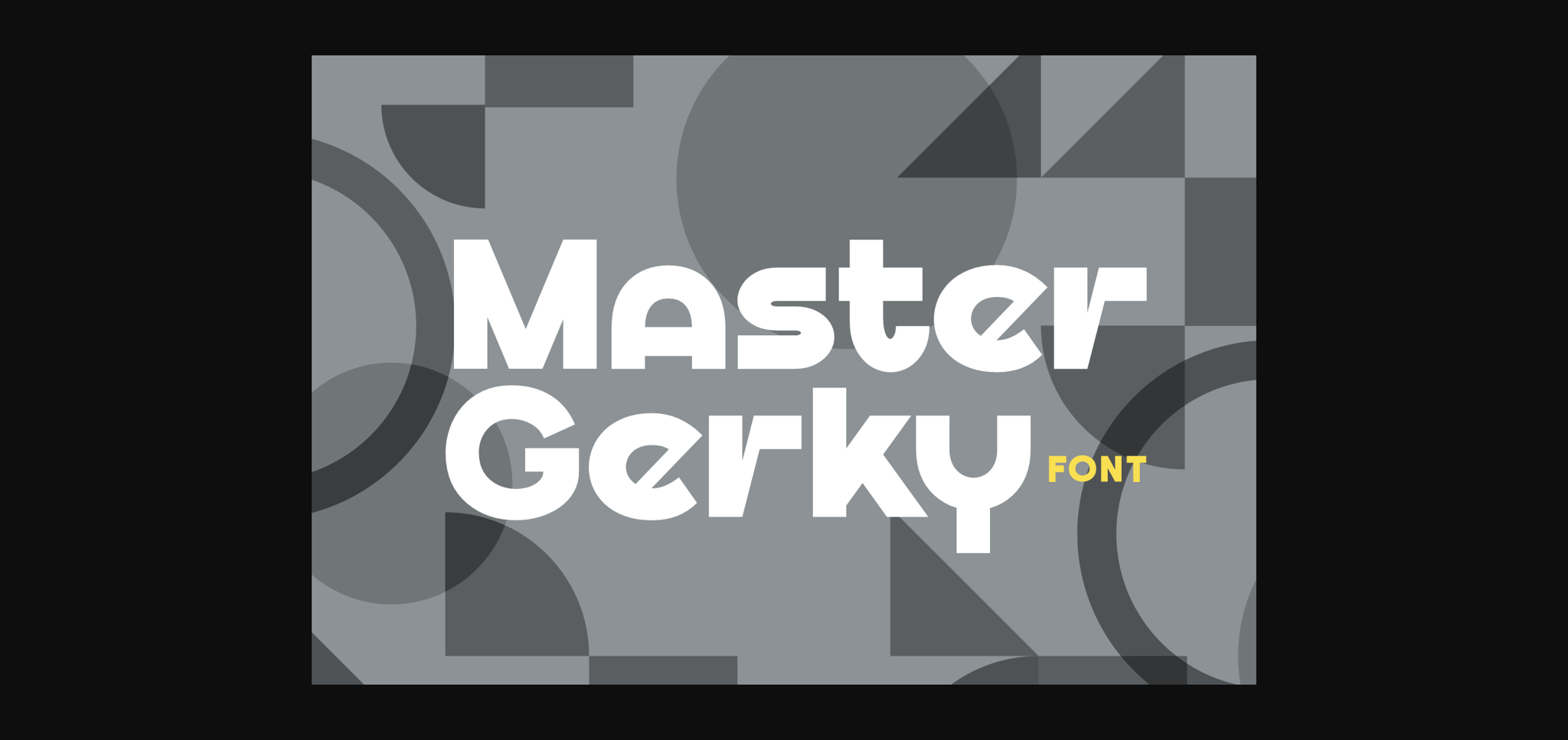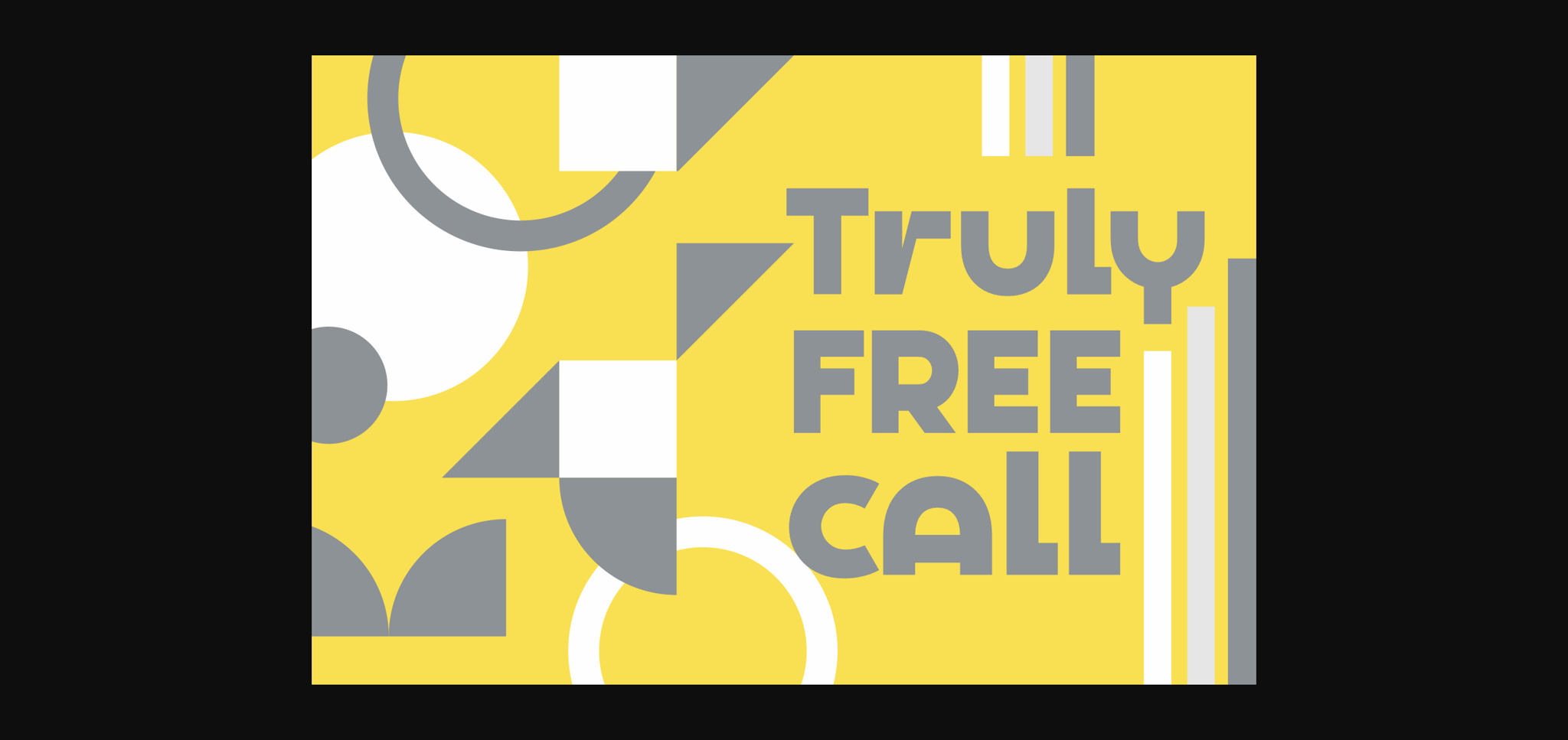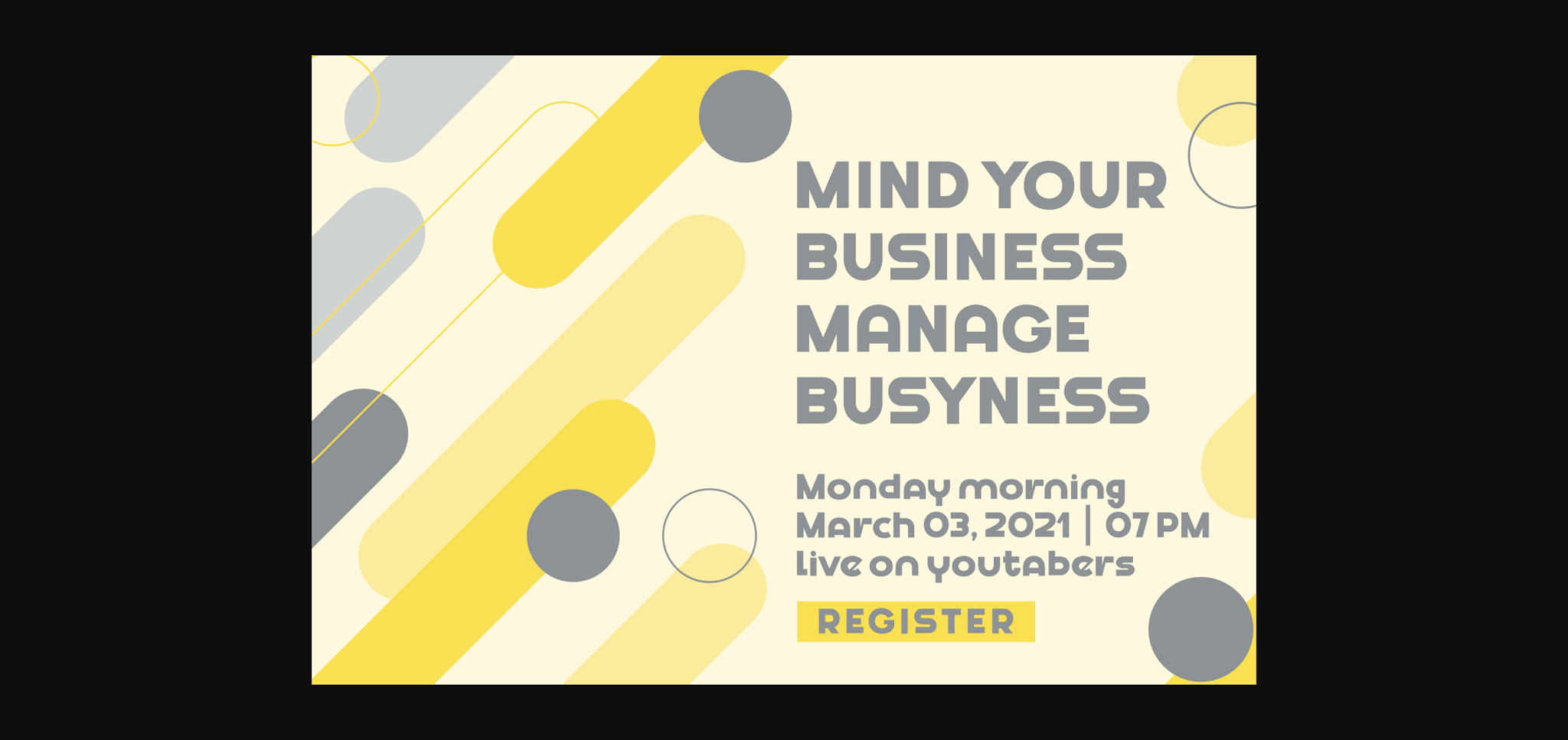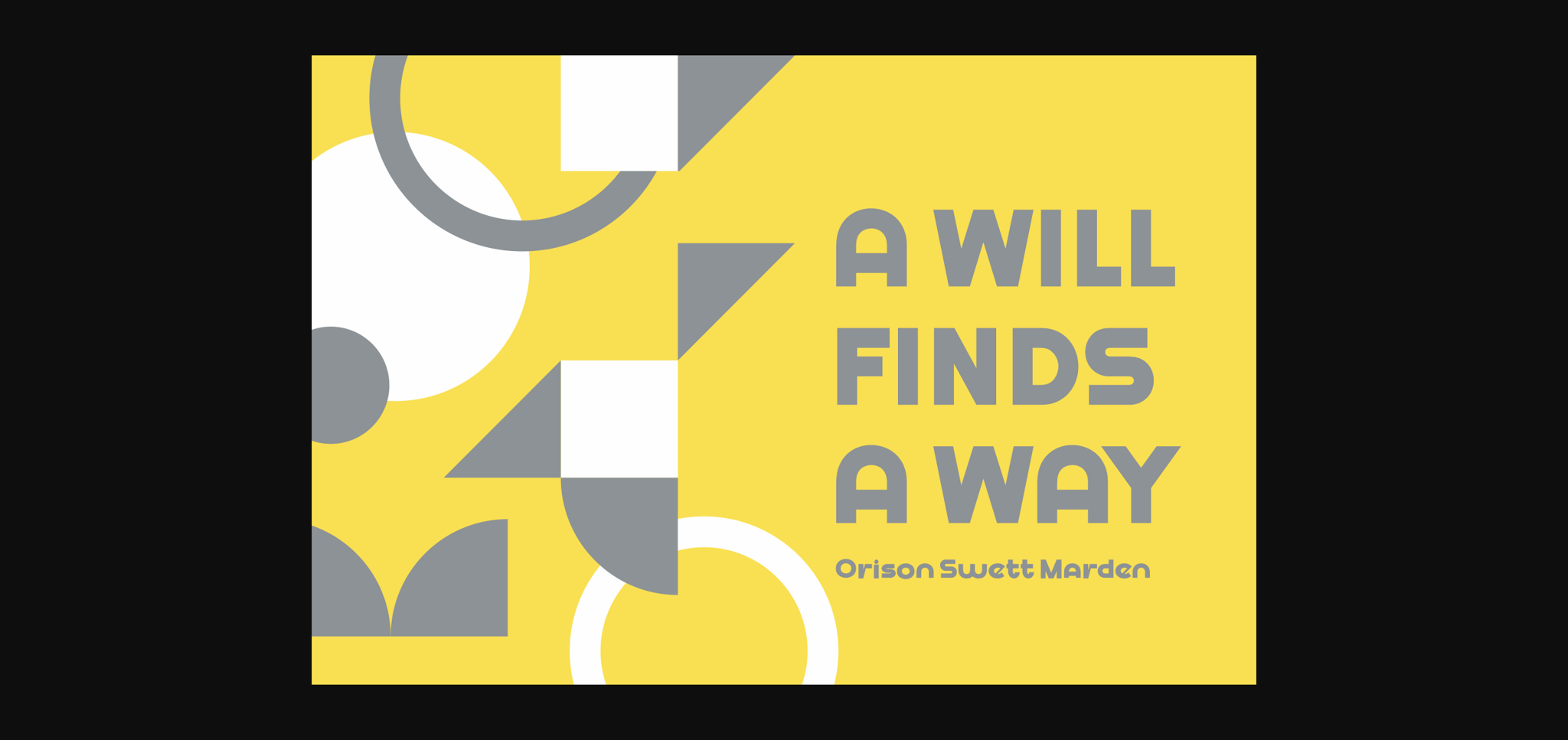
About Master Gerky Font
Master Gerky is an elegant and bold sans serif font. Fall in love with its incredibly versatile style and use it to create gorgeous wedding invitations, beautiful stationary art, eye-catching social media posts, and much more!